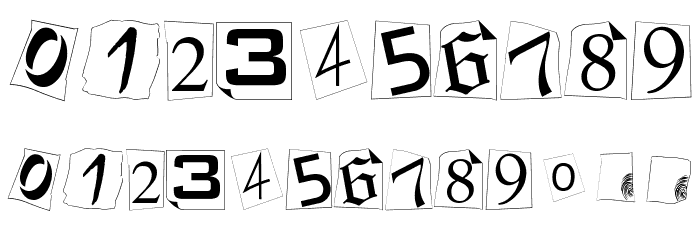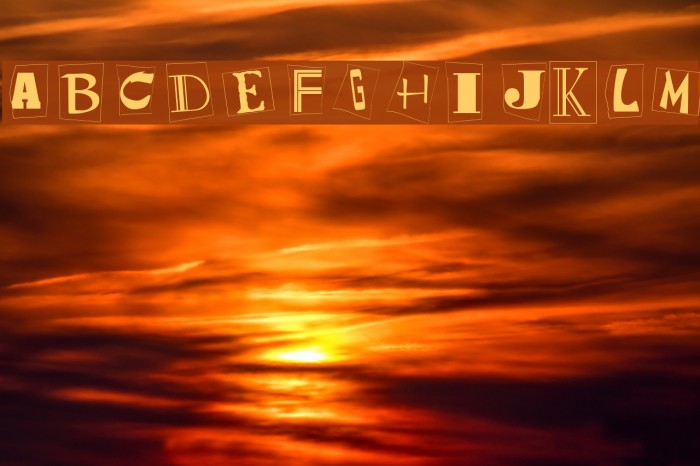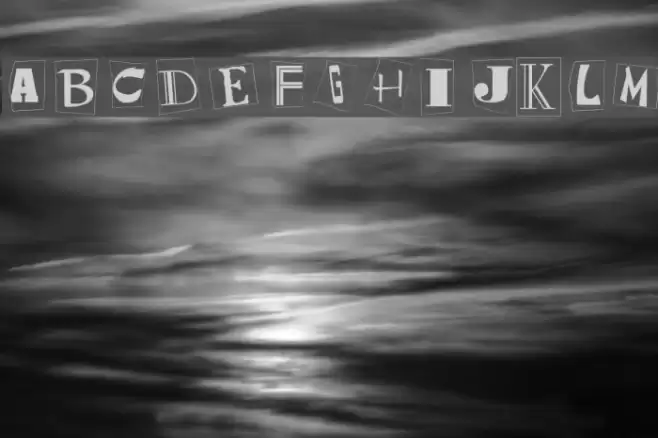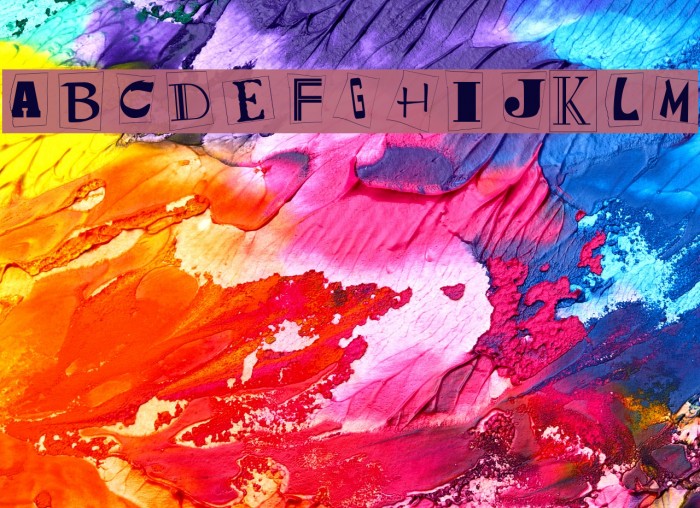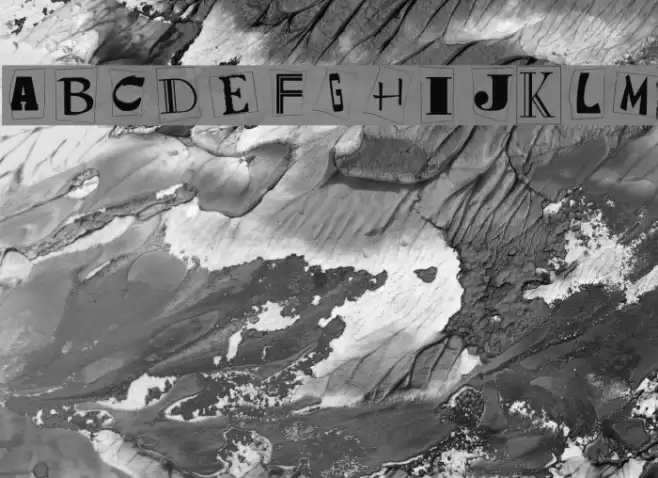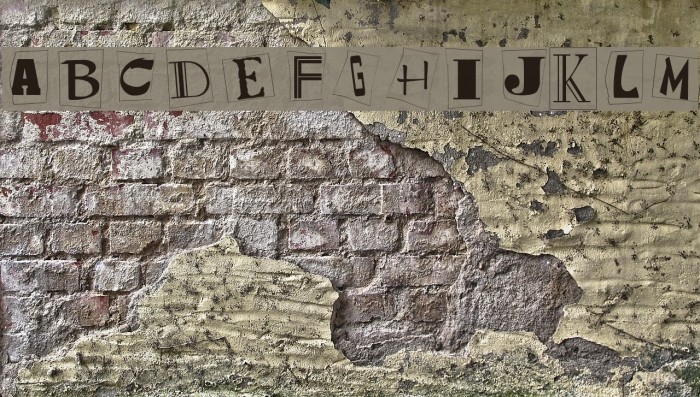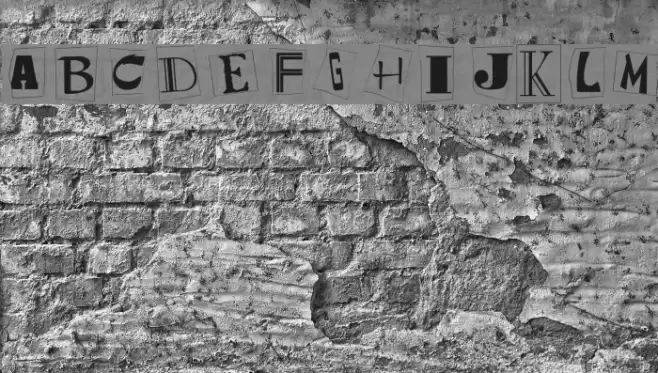
Kidnap Font
| Область применения | Headlines, Posters, Creative Projects |
| Рекомендуемые проекты | Ideal for creative projects like posters, album covers, or themed event invitations where a quirky, eye-catching design is desired. |